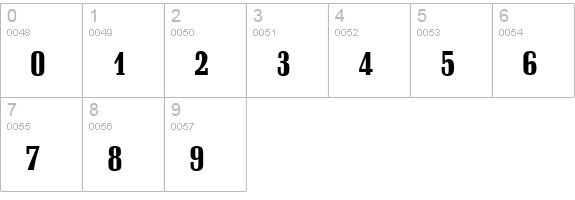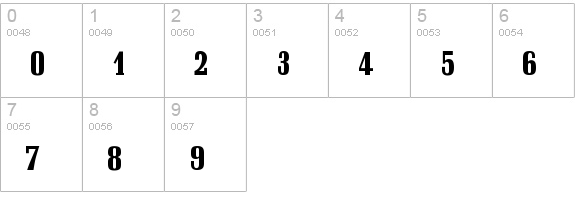
Sheridan-Regular Font Details
Sheridan-Regular is the standard, neutral variant in the Sheridan typeface family \xE2\x80\x94 well suited to general body text, paragraphs, and standard typographic work.
Sheridan-Regular is a versatile and elegant font that exudes sophistication and timeless beauty. With its balanced design and classic appearance, this font is perfect for a wide range of design projects, from formal invitations to branding materials. The clean lines and graceful curves of Sheridan-Regular make it a popular choice for those looking to add a touch of refinement to their work. What's even better is that Sheridan-Regular is available for free download at FontsMarket.com, making it easily accessible to designers and creatives looking to enhance their projects with a touch of style and class. Don't miss out on the opportunity to add this exquisite font to your collection today!